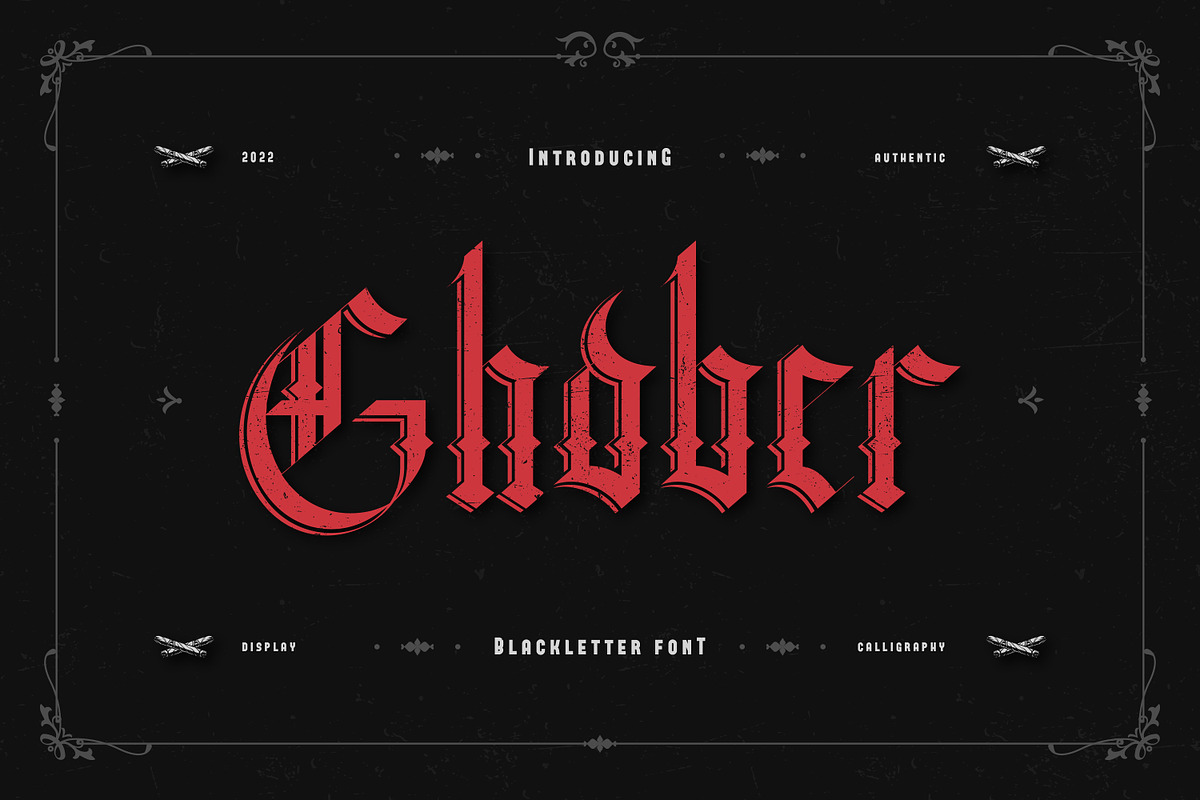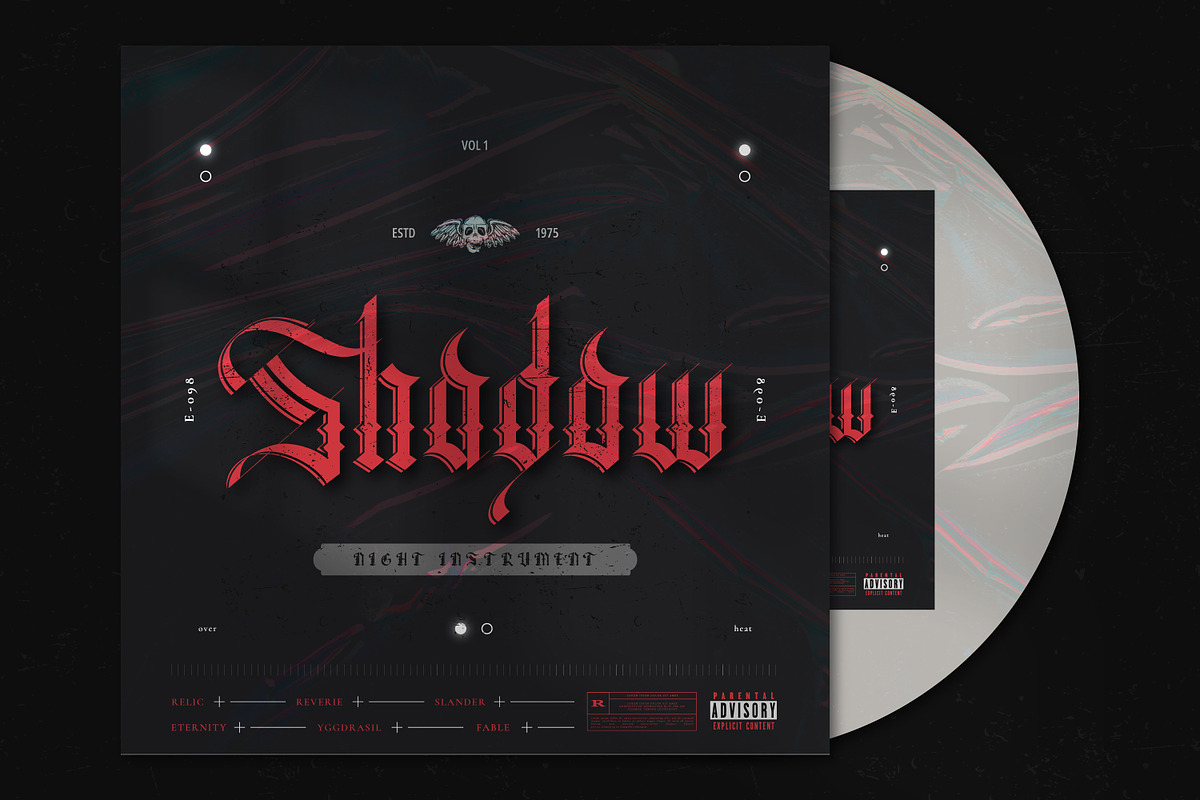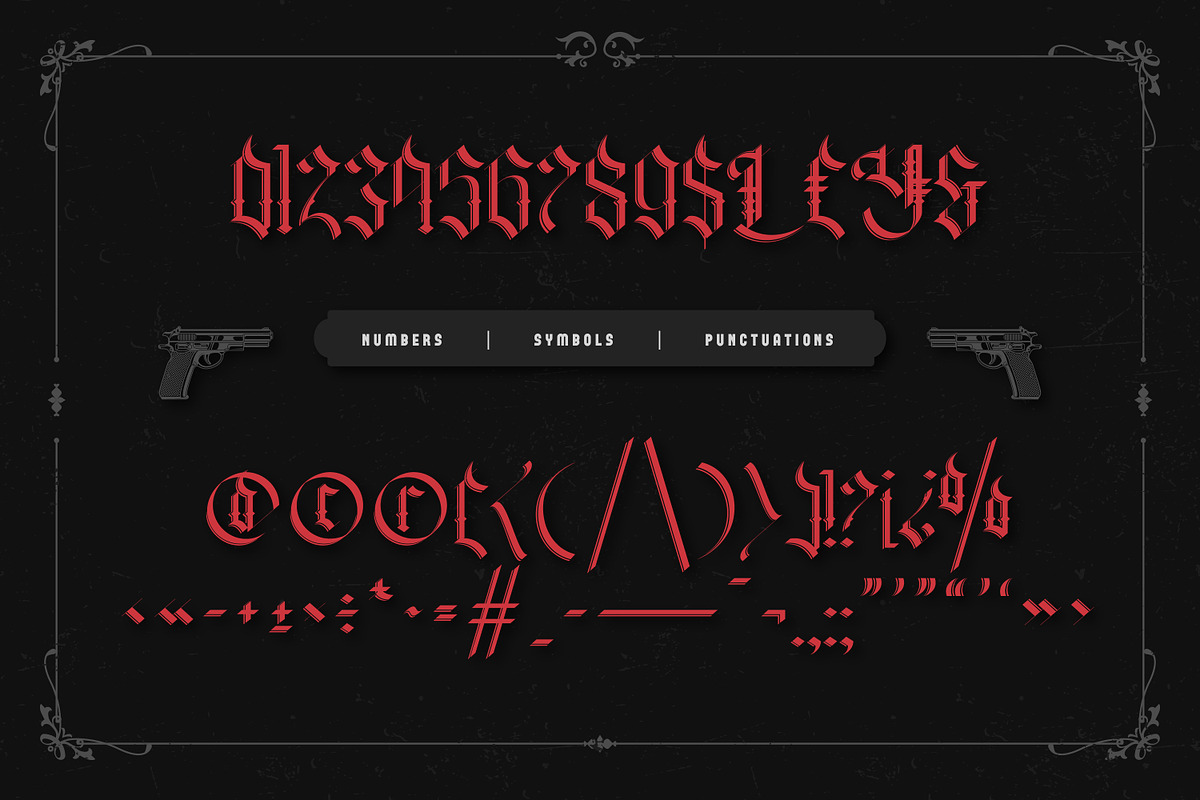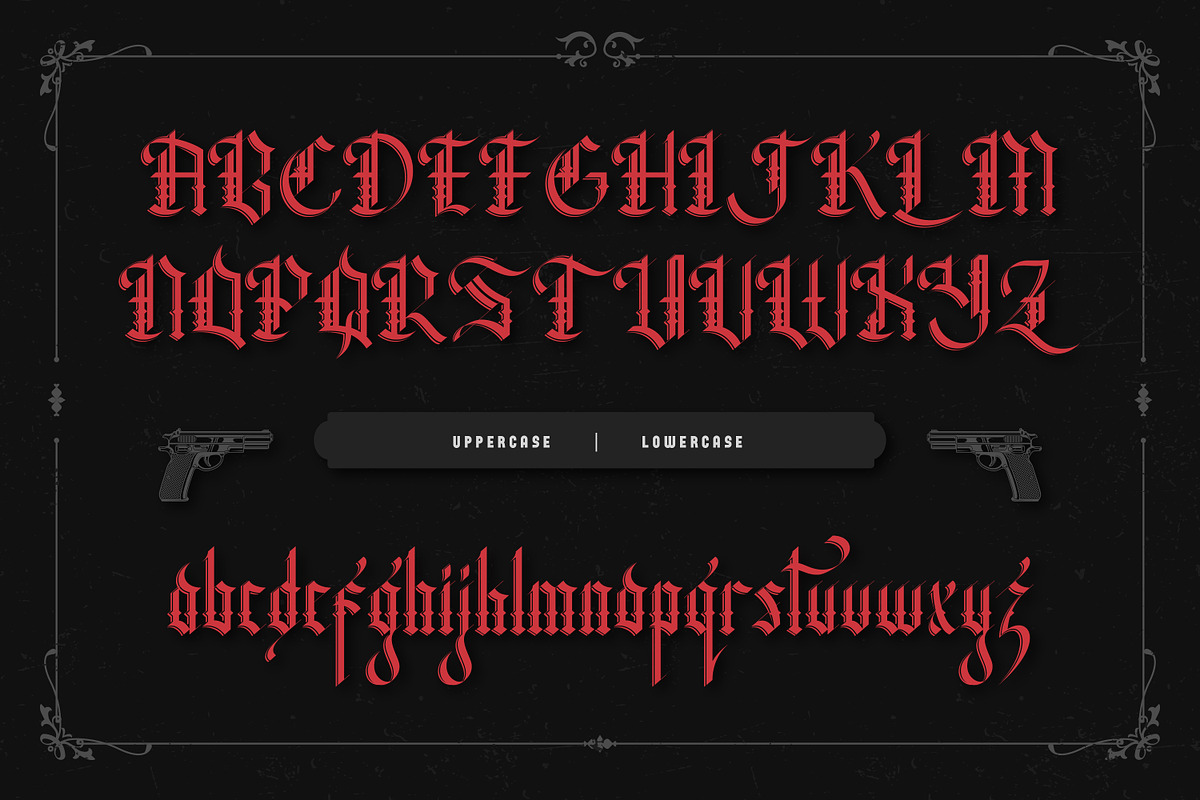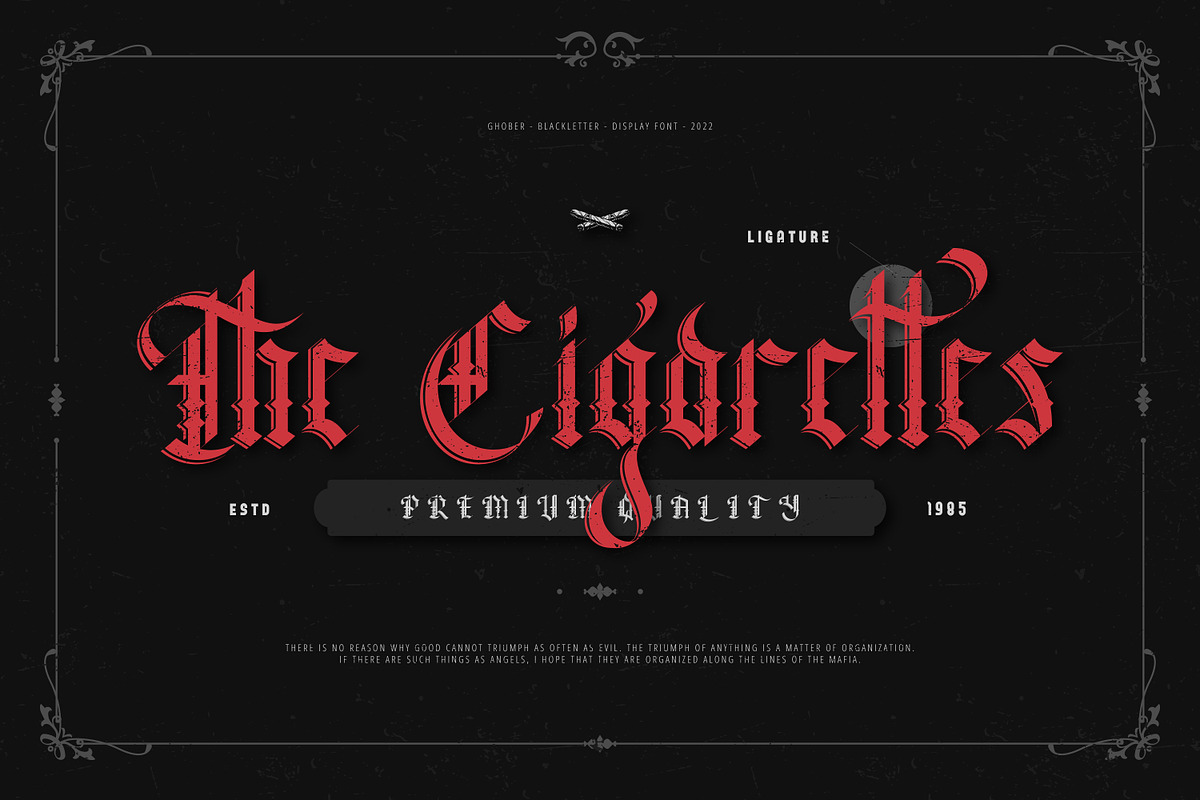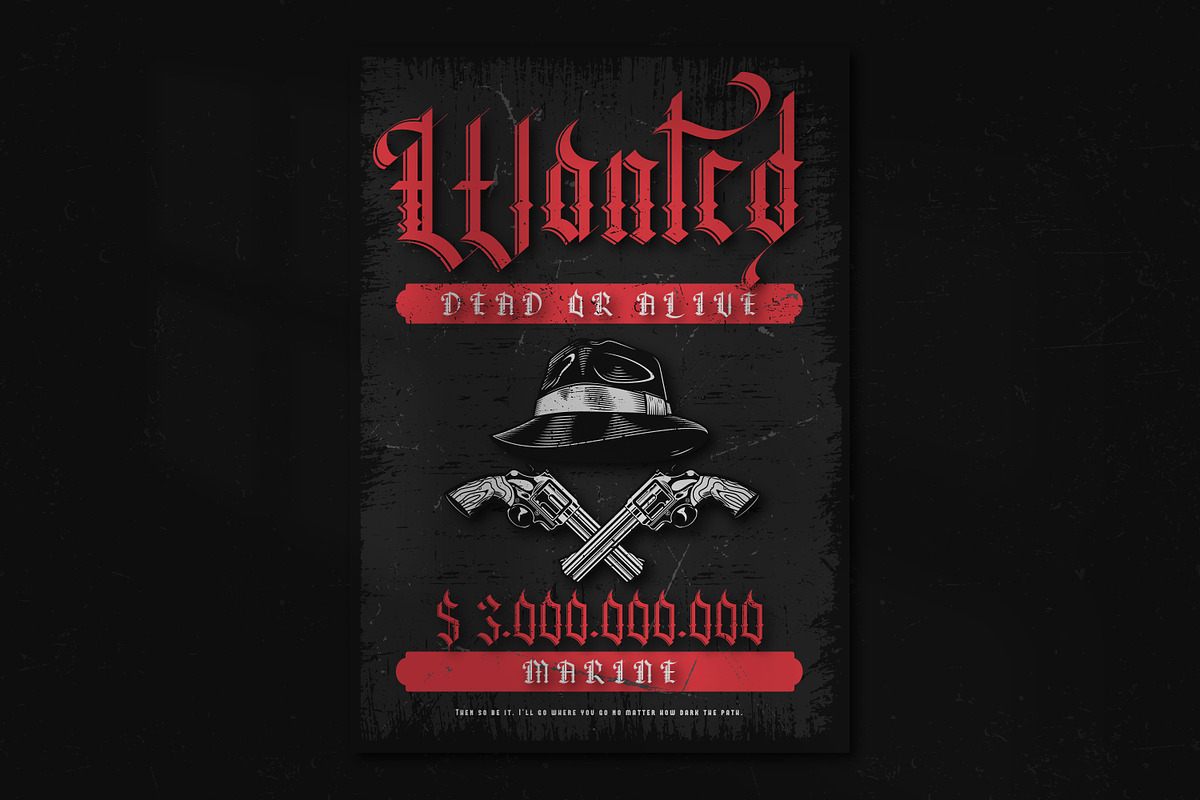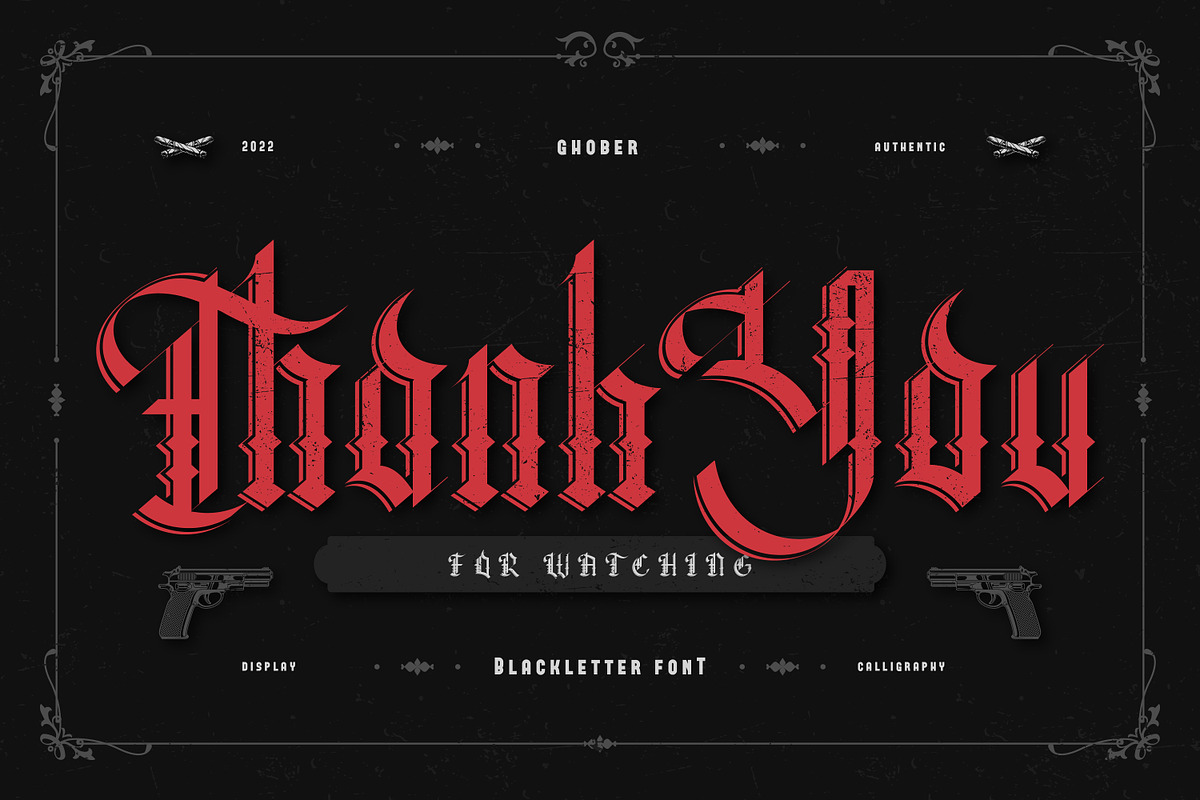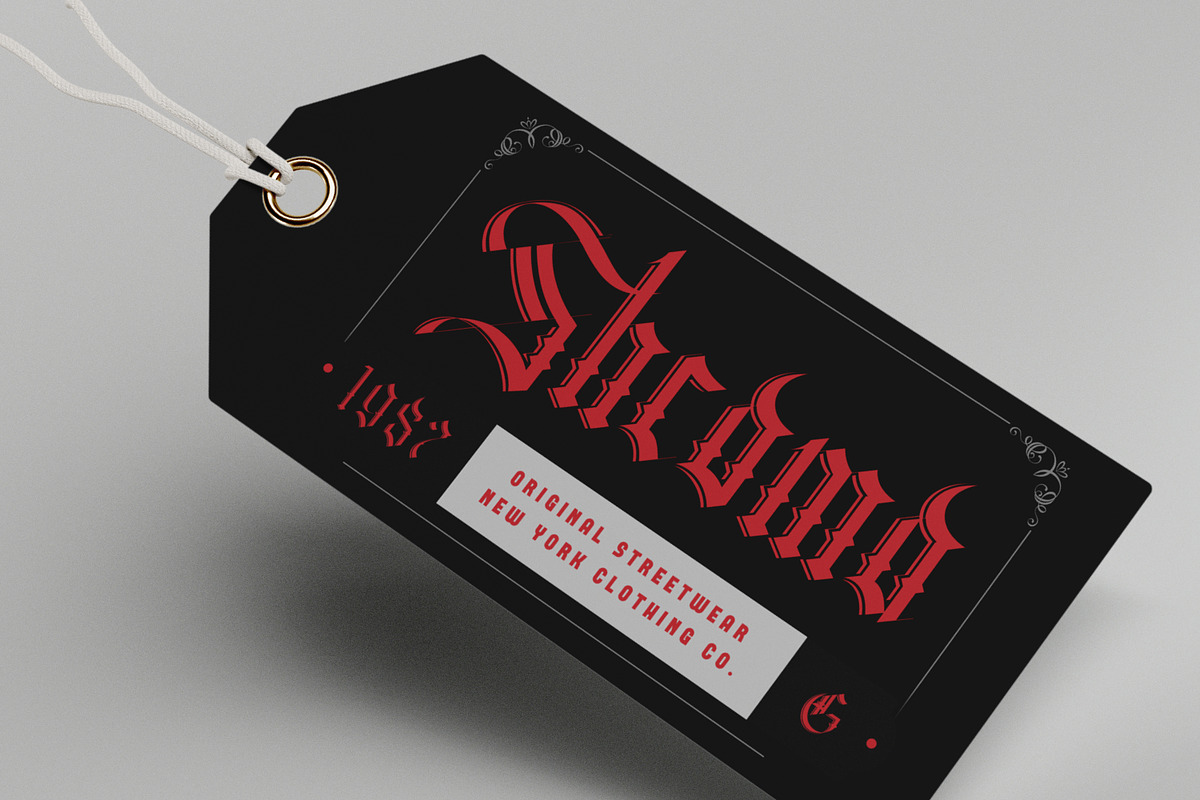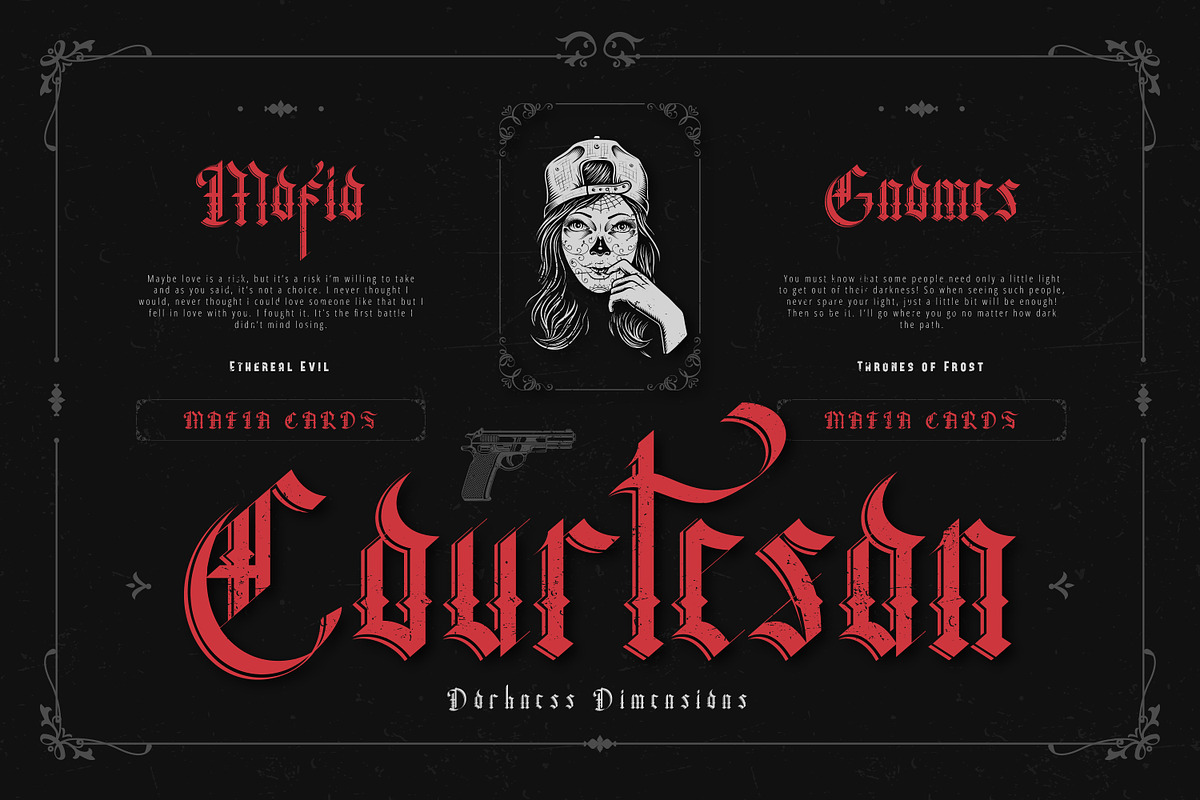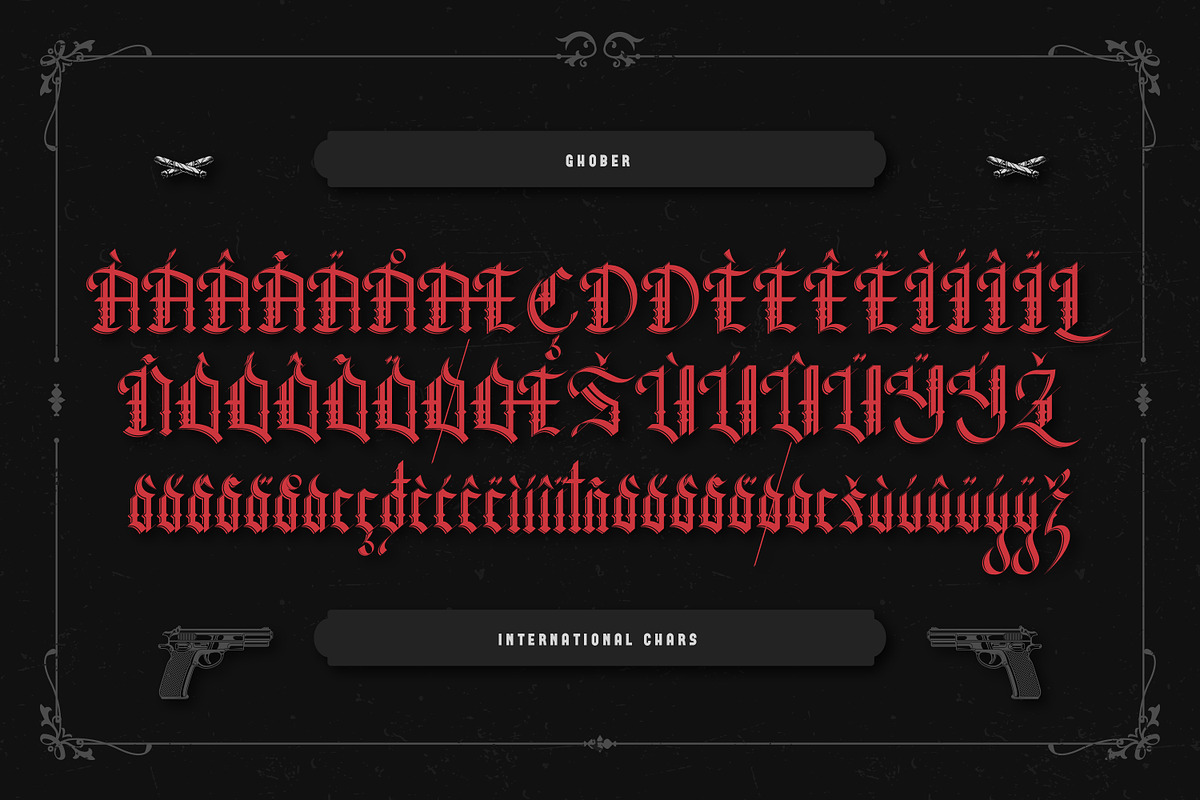
Ghober Display Blackletter
Ghober is one of the display fonts released in 2022, with a unique design this font is perfect for beautifying your project. There are several elements in each letter, the point is this font is very unique and recommended. Bold lines and slight curves blend beautifully in this font. This font is suitable for various projects, for example you can use this font for your invitation card, poster, social media post, lettering, book heading also any design.
- OpenType Features (Stylistic Set)